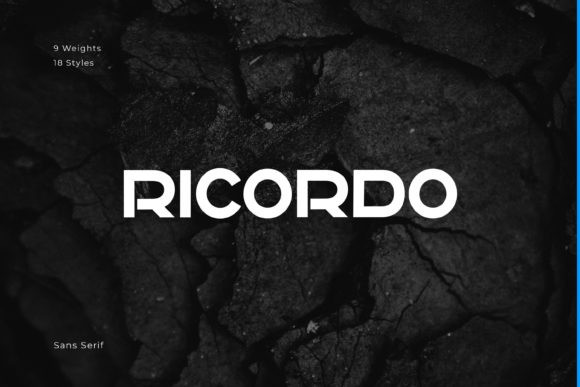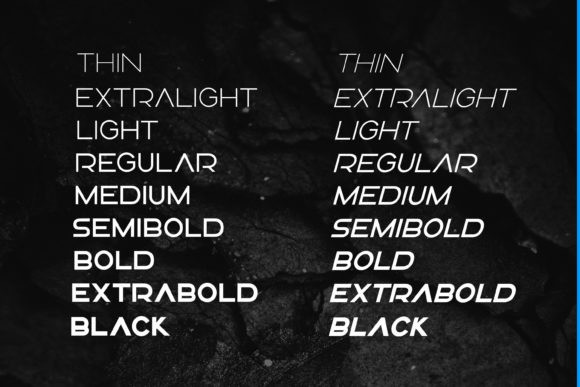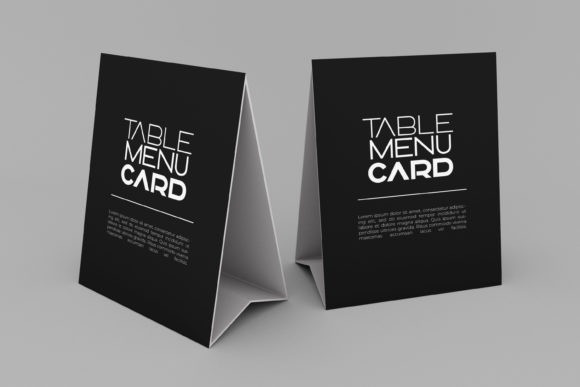
Ricordo Font
Ricordo is a unique and modern display typeface perfect for headlines, big text, branding, logotypes & display usage. This font can be a great choice for creating outstanding logos, promotional content, and marketing graphics that can bring uniqueness and freshness to their highest level. It is perfect for adding a personal touch to unique monograms, logos, and identities.